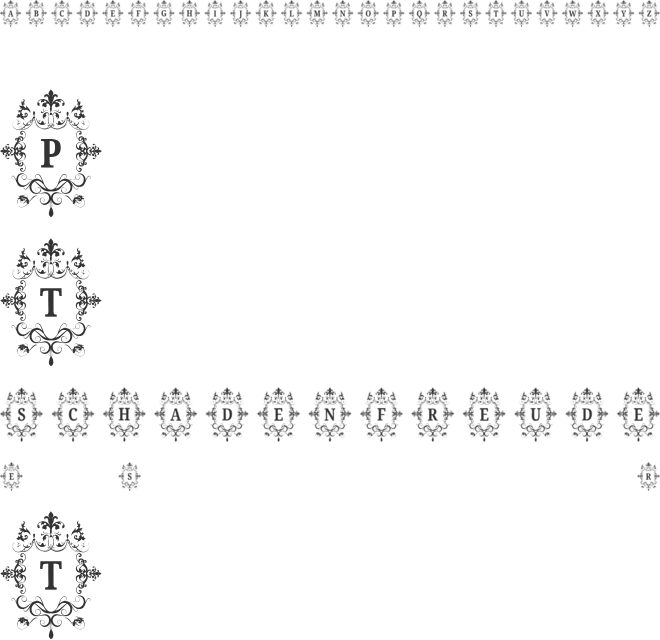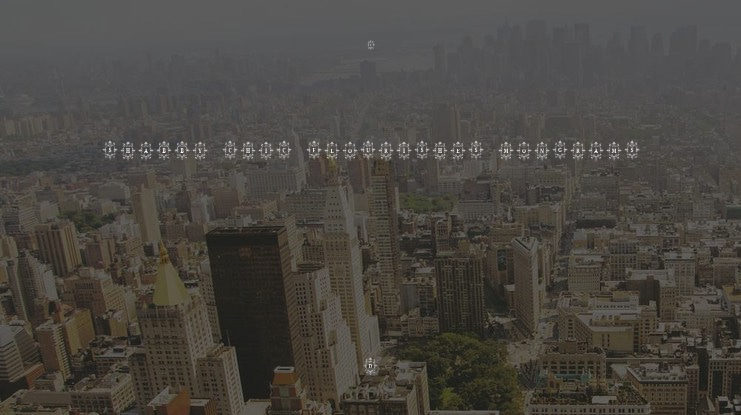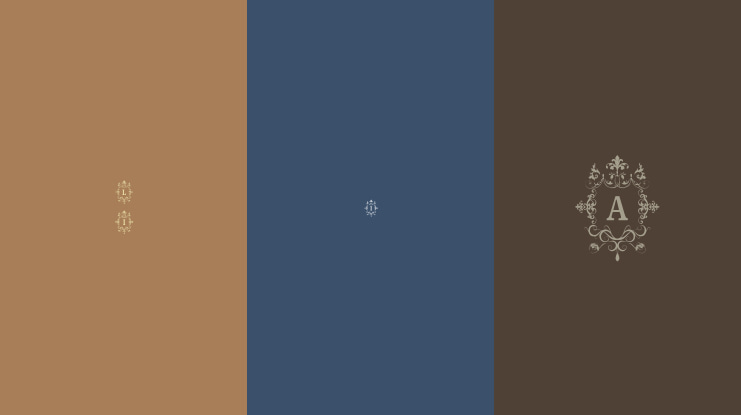
SHABBY CHIC FLOURISHES MONGRAMS Font
Shabby is a decorative dingbats font with elegant frames and flourishes—perfect for vintage branding, invitations, and romantic packaging.